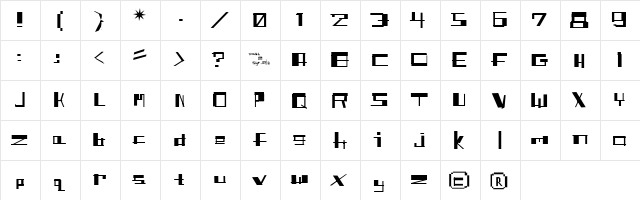
Shitfont Regular Font Preview
Shitfont Regular
Design Context for Shitfont Typeface
Shitfont is a composed and adaptable typeface that performs quietly and consistently across a wide range of design contexts.